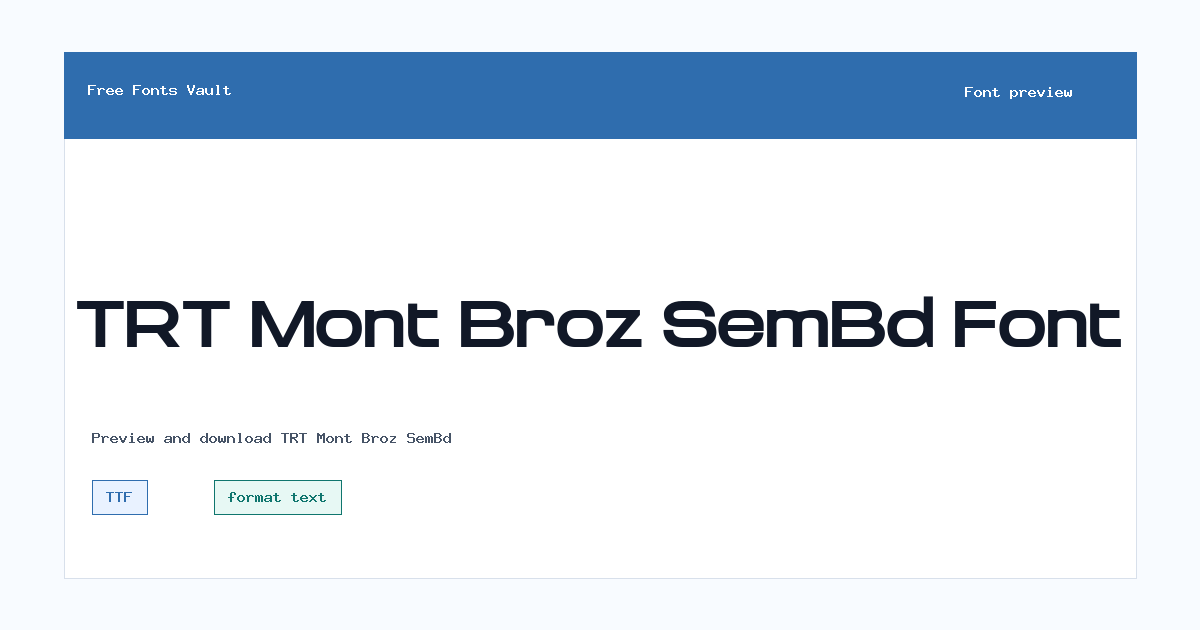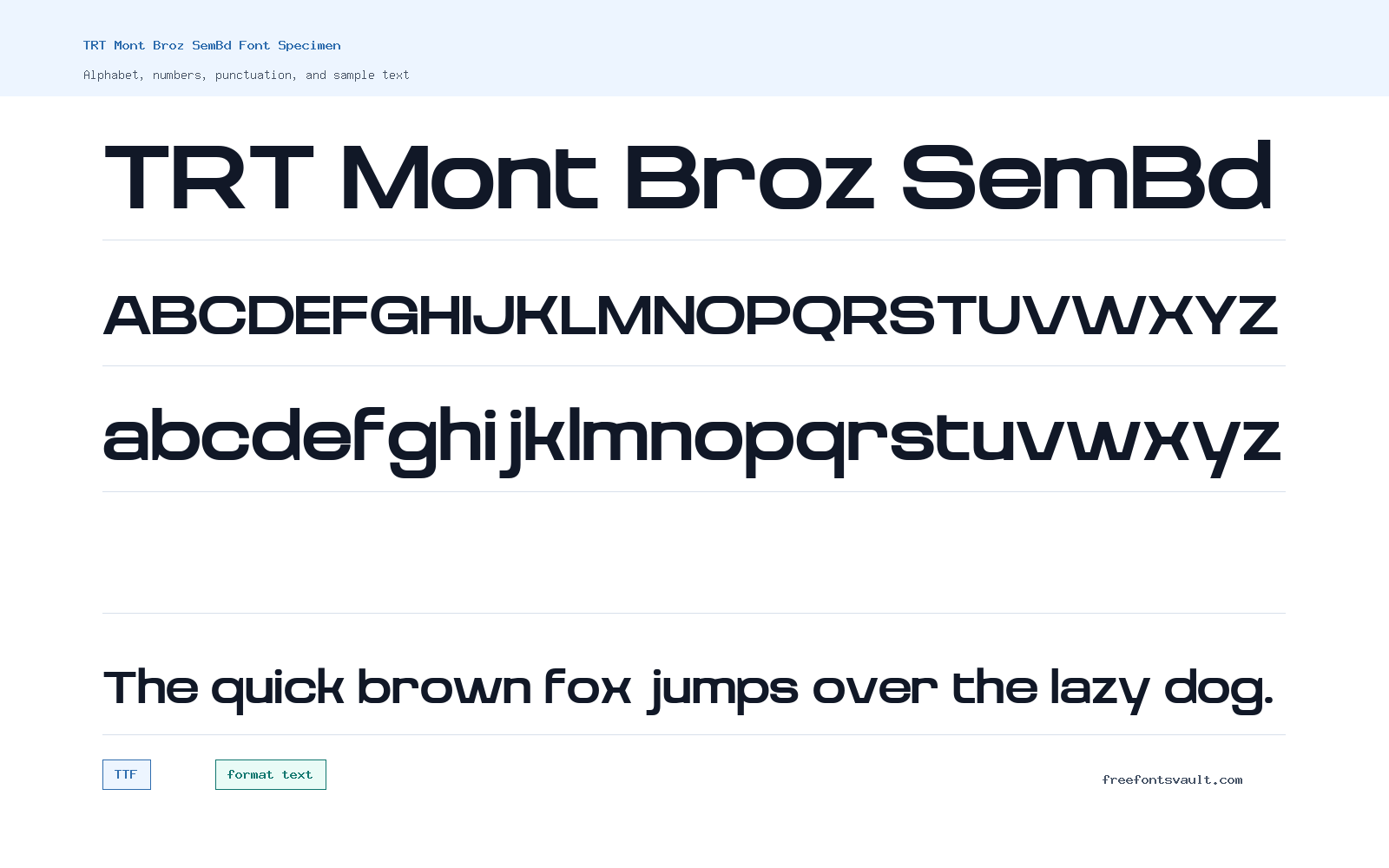
TRT Mont Broz SemBd
- Designer Abel Aurelia Thalitha of Truetype
- Foundry Truetype
TRT Mont Broz SemBd is a wide geometric sans display font with a strong SemiBold weight. It is best tested in short, high-impact text where its broad shapes and clean construction can stand out.
TRT Mont Broz SemBd is part of the TRT Mont Broz Demo family from Truetype. The style uses wide proportions, smooth geometric forms, and a heavier-than-medium weight that gives headlines a firm look without reaching the density of a full bold cut. It works well when you want a modern sans style that feels spacious, structured, and direct.
- Wide geometric sans appearance with clean, modern letter shapes
- Headlines and title graphics
- Posters, covers, and event-style layouts
- Logo concept drafts and branding mockups for personal testing
- Social media images, thumbnails, and short promotional text
- Large display text where wide letterforms have enough room
What kind of font is TRT Mont Broz SemBd?
It is a wide geometric sans display font in a SemiBold weight. It is made for short, visible text such as headings, posters, and title graphics.
Can I use it for body text?
It is not the best choice for long body copy. Its wide shapes and display style work better in larger sizes and shorter lines.